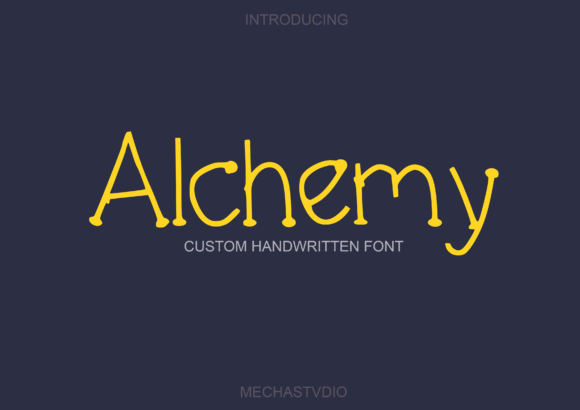
The Alchemy Font: A Game-Changer for Your Designs
What Makes Alchemy Font So Special?
Alchemy is a clean, unique, and good display font perfect for logos, branding, stationery, poster designs, social media posts, and more. Its modern and elegant feel makes it an excellent choice for designers and crafters looking to elevate their work.
What I Love About Alchemy Font ✨
- ✅ Clean and Unique Design: Alchemy font boasts a distinctive and modern look that sets it apart from other fonts.
- ✅ High Versatility: It’s perfect for various design projects, from logos and branding to social media posts and posters.
- ✅ Elegant and Sophisticated: The font’s elegant feel makes it suitable for high-end designs and luxury brands.
- ✅ Easy to Read: Despite its uniqueness, the font remains highly legible, even at smaller sizes.
- ⚠️ Limited Use for Body Text: Due to its display nature, Alchemy font might not be the best choice for lengthy body text.
- ⚠️ Requires Attention to Kerning: As with any font, some manual kerning might be necessary to achieve optimal results.
The Backstory of Alchemy Font
The Alchemy font was created with the goal of crafting a unique and versatile typeface that would cater to the needs of modern designers. Inspired by the elegance of luxury brands and the sophistication of high-end designs, the font’s creator aimed to produce a clean, modern, and highly legible font.
Q: What makes Alchemy font suitable for logos and branding?
A: Alchemy font’s unique and modern design, combined with its elegance and sophistication, make it an excellent choice for logos and branding projects.
Q: Can I use Alchemy font for body text?
A: While Alchemy font is primarily designed for display purposes, it can be used for short paragraphs of body text. However, for longer texts, a more traditional font might be more suitable.
Q: Is Alchemy font easy to read?
A: Yes, despite its unique design, Alchemy font remains highly legible, even at smaller sizes.